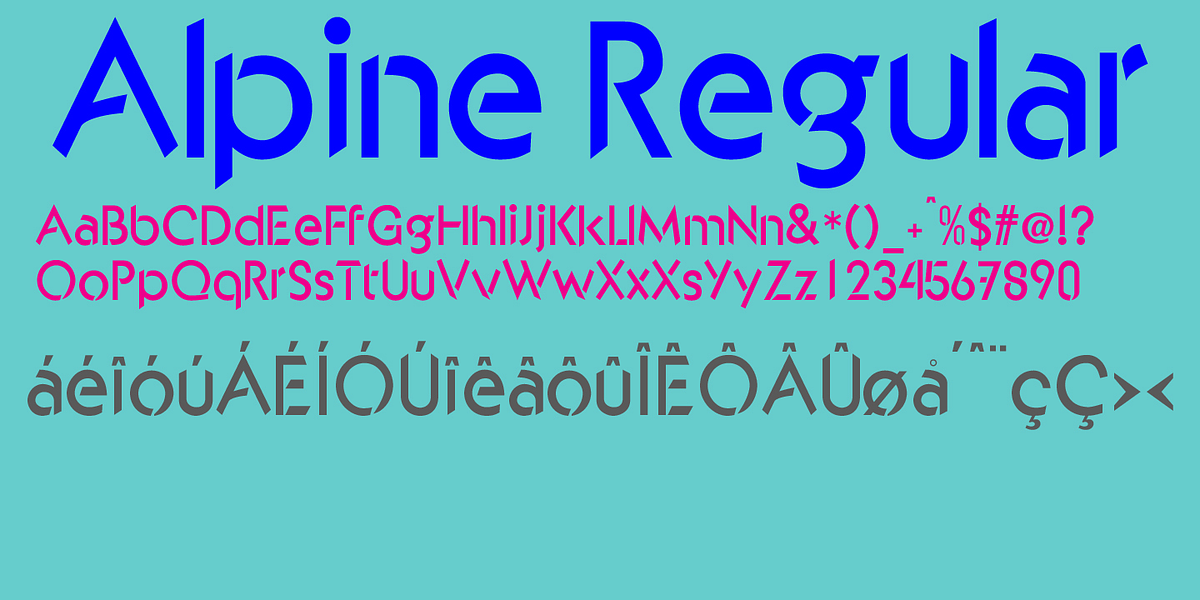
Alpine Reglar
This font is a geometric sans-serif typeface with a retro aesthetic. Its stencil-like quality suggests bold and industrial applications. It would be well-suited for headlines, posters, and branding materials seeking a vintage feel.